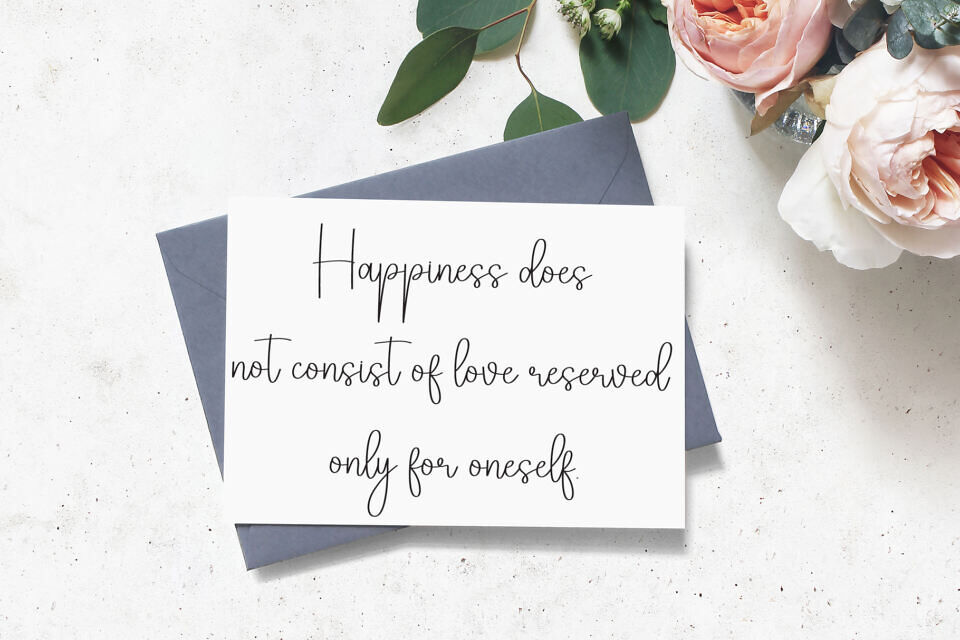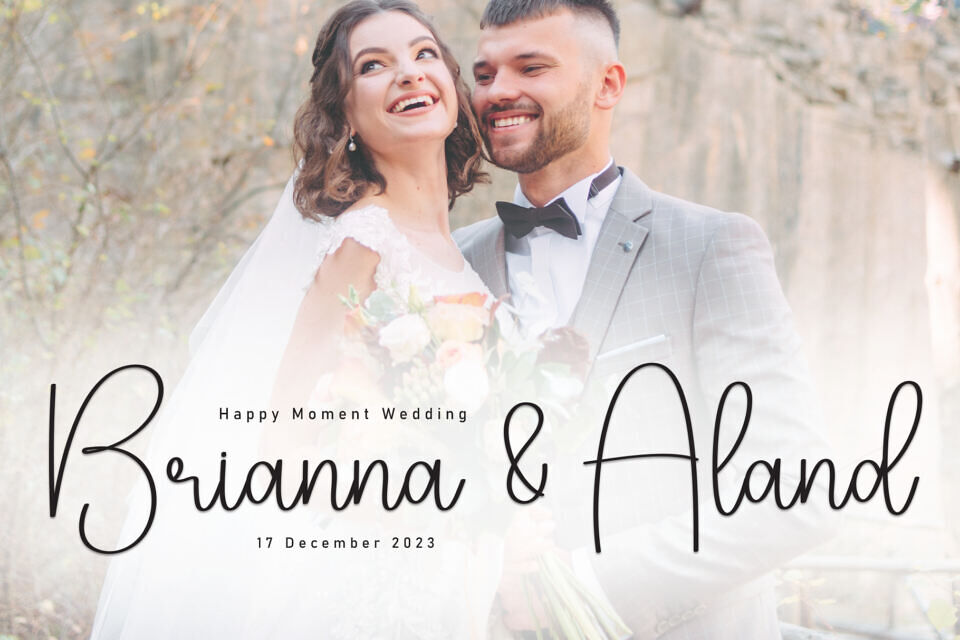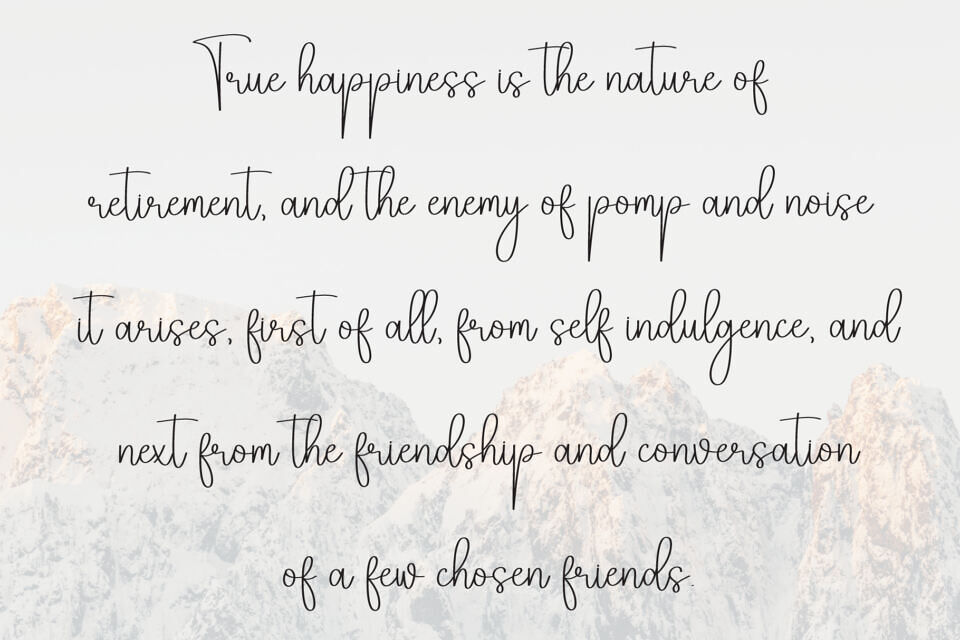
The Watercolor Font is a graceful, cursive handwritten typeface with a smooth, flowing style. Its delicate, connected letters exude elegance and charm, making it ideal for invitations, quotes, or personal branding.
The font features a consistent, light stroke, with uppercase, lowercase, numbers, and punctuation. Perfect for adding a warm, personal touch to designs, it brings a timeless, handwritten aesthetic to any project.